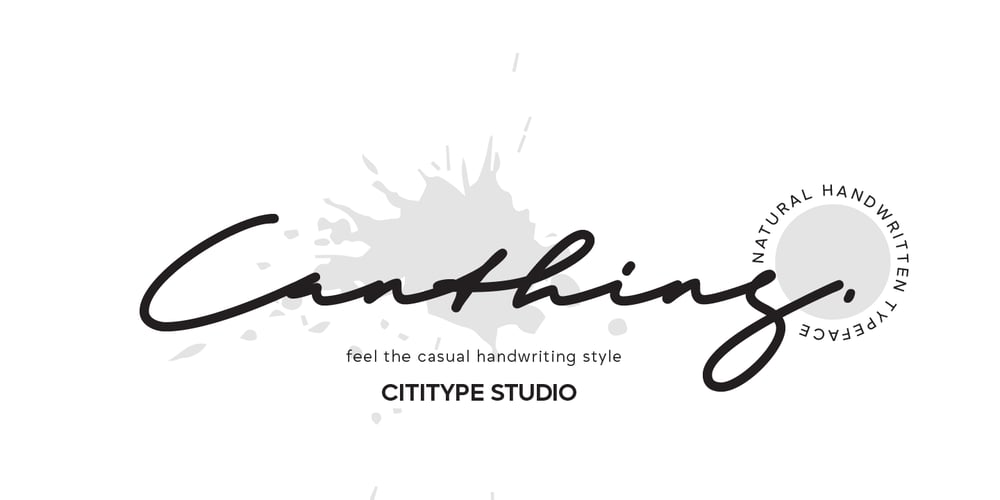
Canthing
Canthing font
Canthing Font Family was designed by Muhammad Ridha Agusni, Siti Saribanon Nurjannah and published by Cititype. Canthing contains 1 styles and family package options. The “Canthing” font offers a natural, handwritten feel that is both casual and refined. Its smooth, monoline strokes bring a simple elegance, making it a great choice for modern branding. Whether you’re working on logos, fashion labels, packaging, or social media graphics, this font adds a touch of effortless style and charm.Versatile and flexible, “Canthing” beautifully elevates any text, giving it a personal and authentic feel. From personal branding to professional projects, it brings a warm, handwritten quality that is welcoming and sincere.Key Features:• Natural, handwritten script• Perfect for logos, fashion, and social media• Stylish yet understated, with an elegant touchThis font is a wonderful fit for any project looking to balance simplicity with a fashionable, handwritten aesthetic.